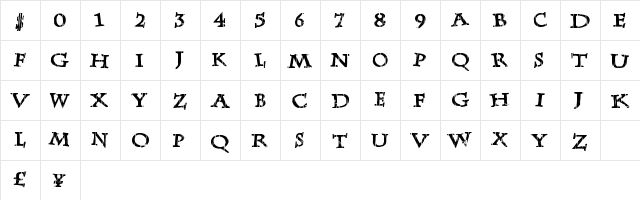
LateDrank Regular
| Foundry | Xerographer Fonts |
| Designer | Xerographer Fonts Max Infeld |
Design Context for LateDrank Typeface
LateDrank is a composed and adaptable typeface that performs quietly and consistently across a wide range of design contexts.